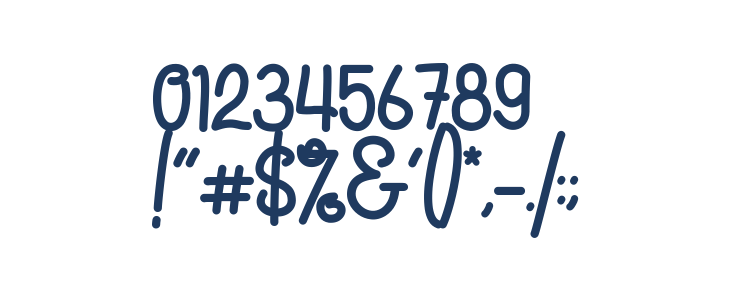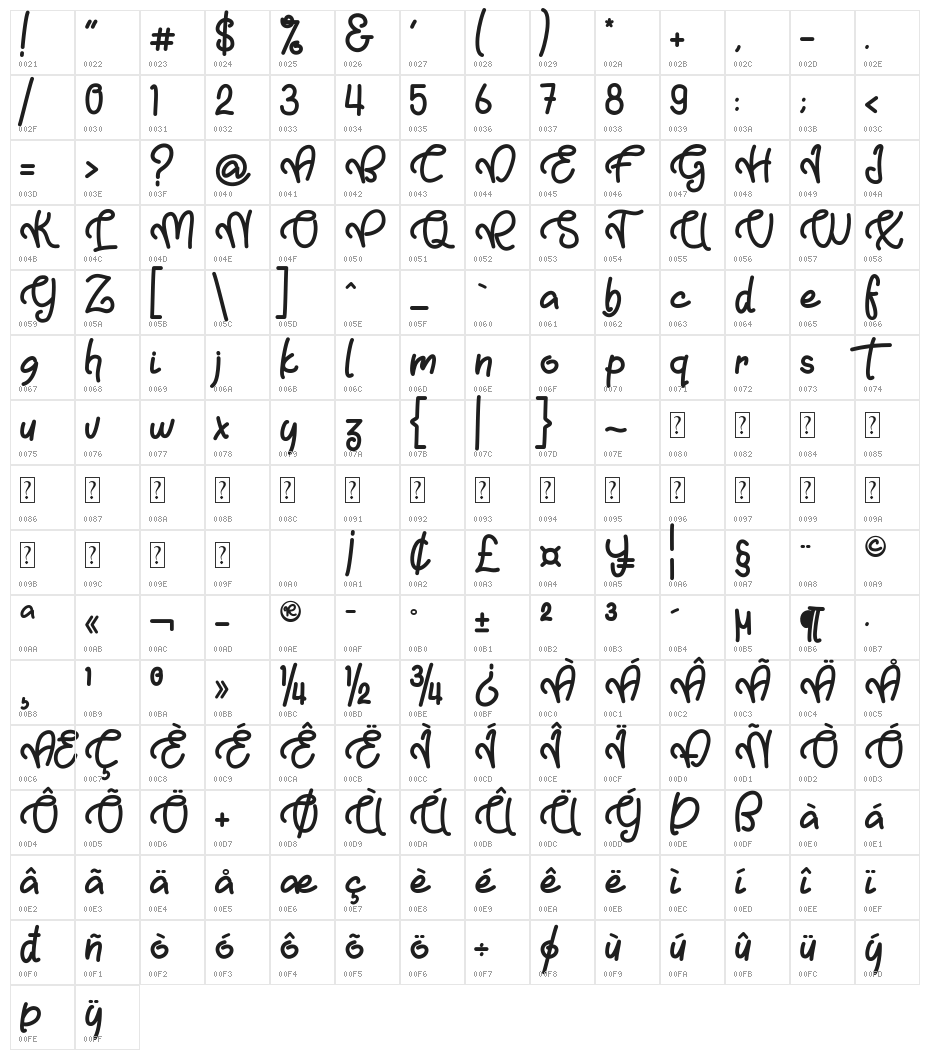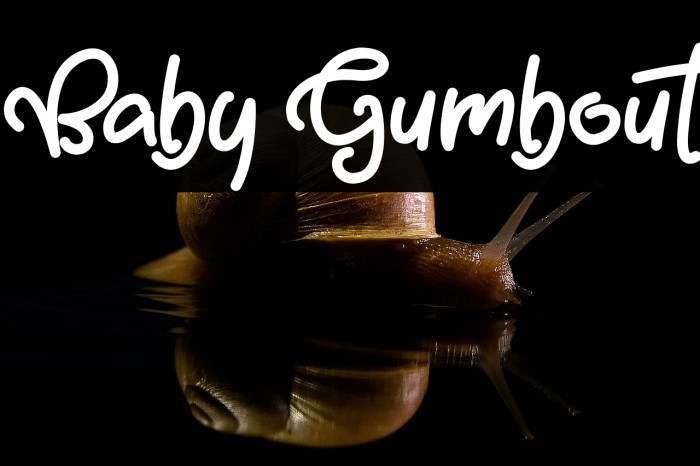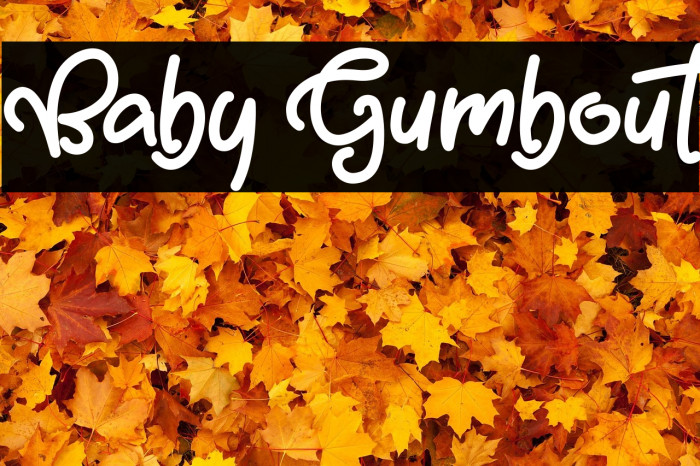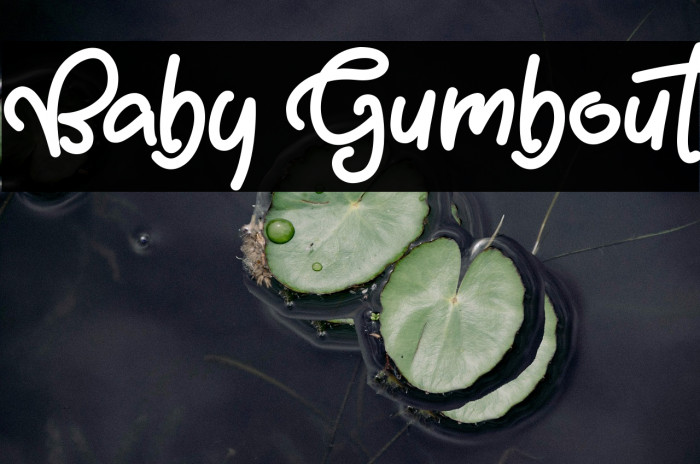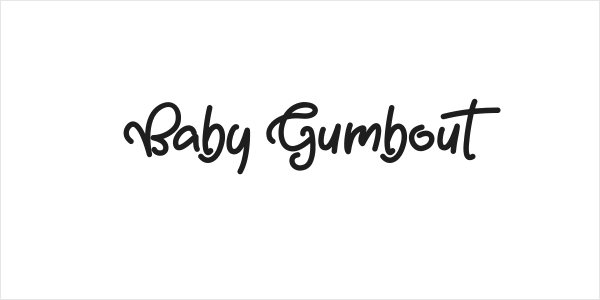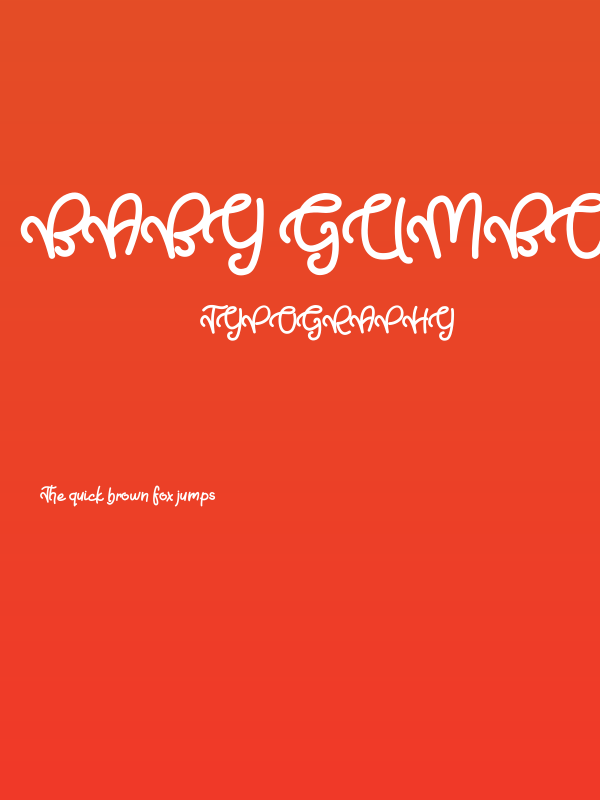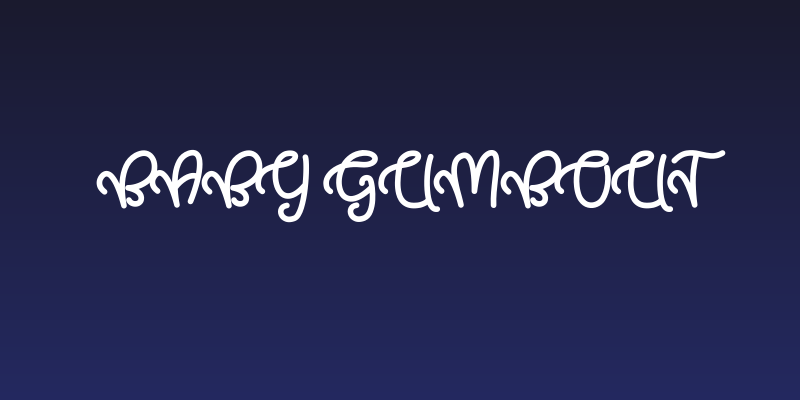
Baby Gumbout Font
Baby Gumbout Description
This playful and whimsical font features a bold, rounded style with a hand-drawn appearance. The uppercase letters are characterized by their flowing, interconnected forms, giving a sense of movement and energy. The lowercase letters maintain a consistent style, with some letters featuring unique loops and curls that add to the font's charm. The numerals are equally playful, with a consistent thickness and rounded edges. Special characters are creatively designed, maintaining the overall playful theme. This font is perfect for projects that require a fun and lively touch.